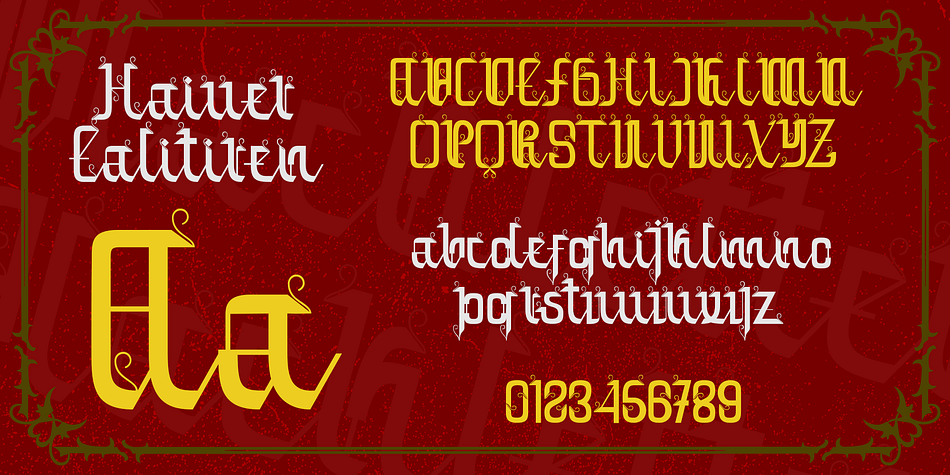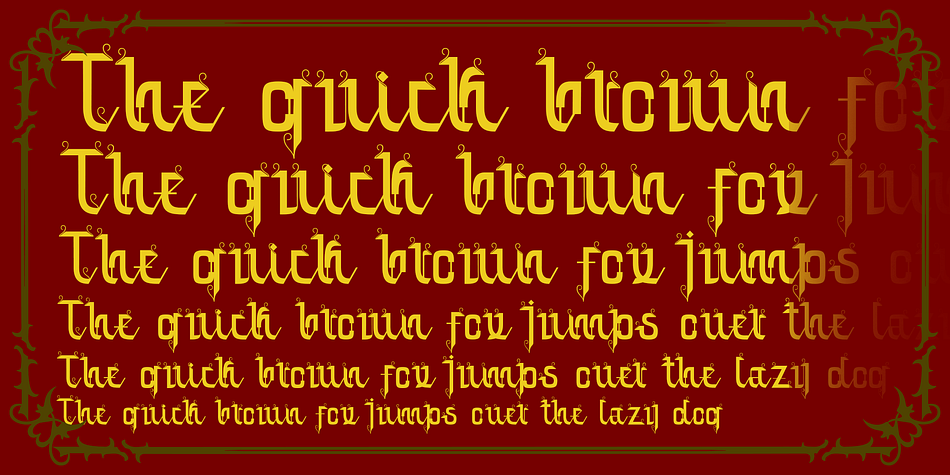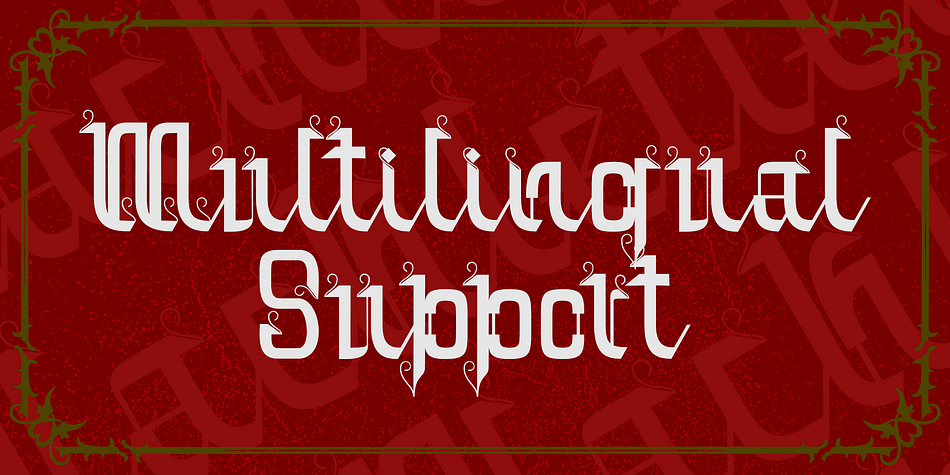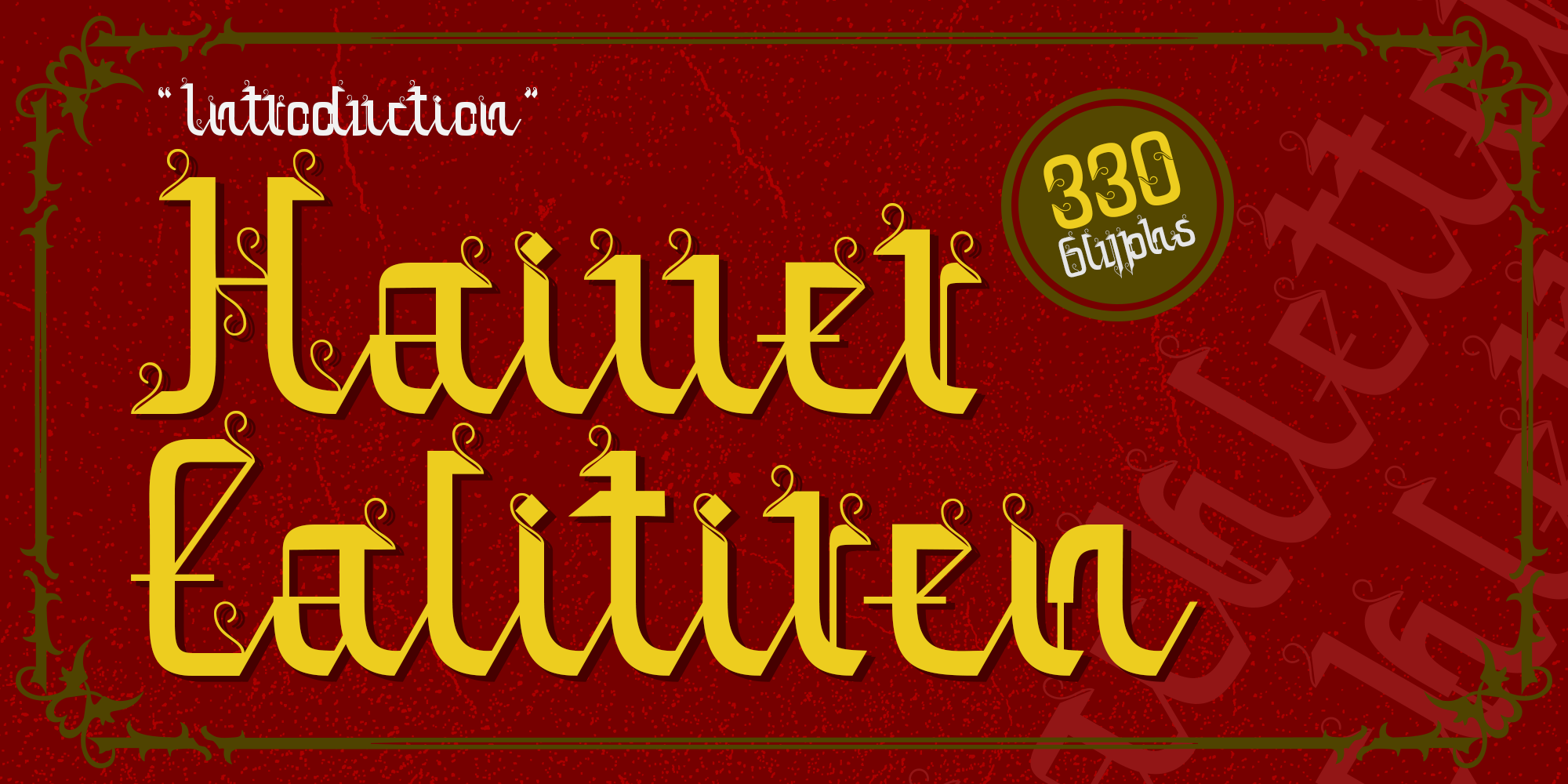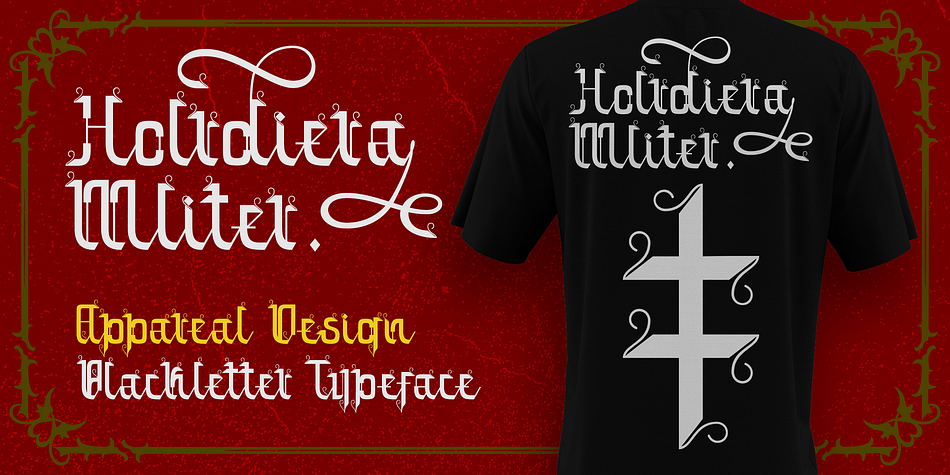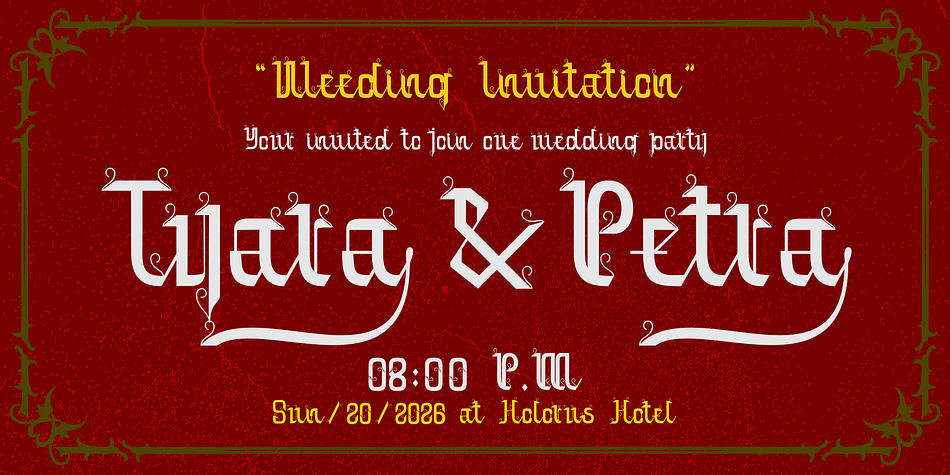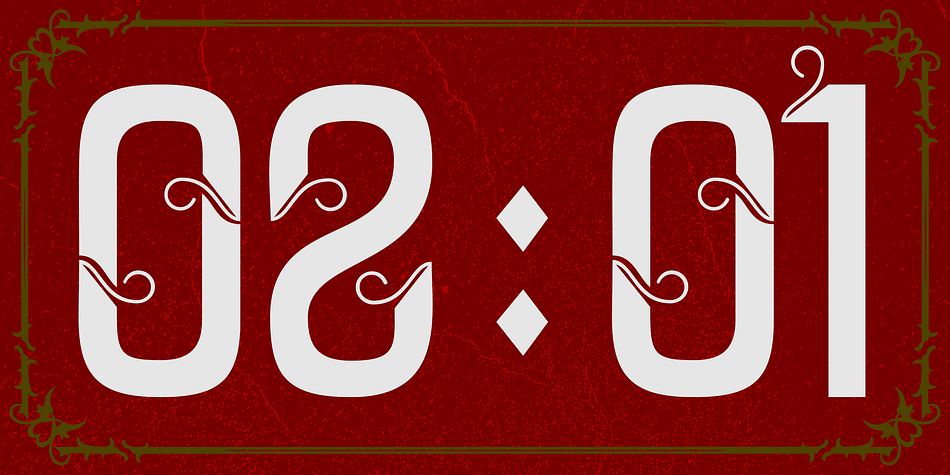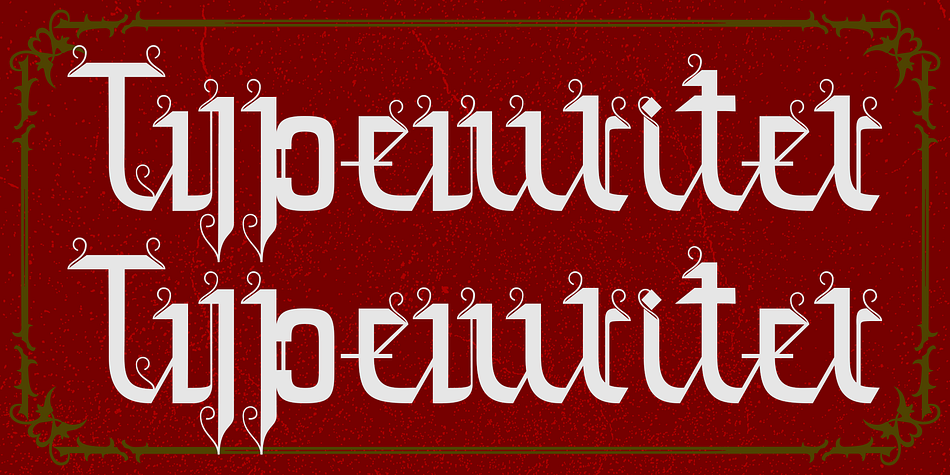
Haiver Ealitiren
Haiver Ealitiren is a display font family published by propertype.
Haiver Ealitiren is a simple and modern gothic font inspired by Medieval culture and architecture.
Haiver Ealitiren is a modern and minimalist classic blackletter with a very bold look.
This font is very suitable for your design needs such as poster design, logo design, branding, apparel, books, magazines, etc.